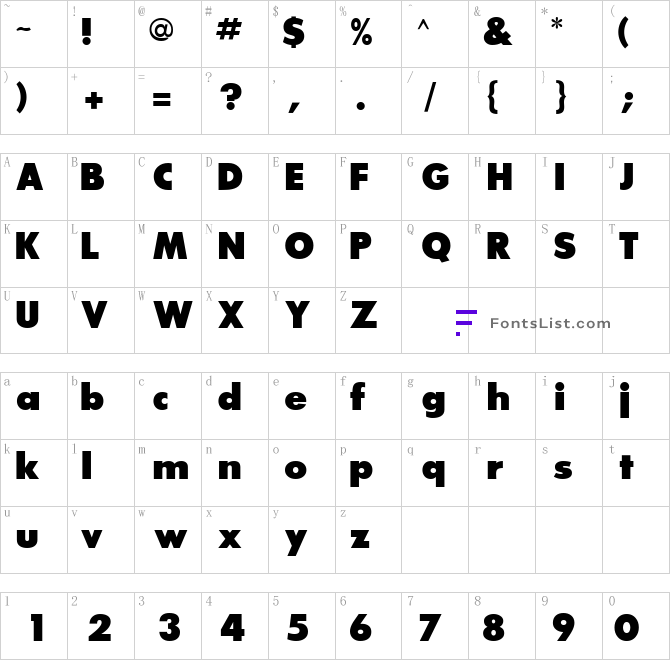
- Font Name:Aventura Heavy
Aventura-Heavy-Bold.ttf is a very beautiful artistic font, Aventura-Heavy-Bold.ttf is widely used in the design and printing of various books and pictures,Aventura-Heavy-Bold.ttf has a strong visual impact,Aventura-Heavy-Bold.ttf is a commonly used font in newspapers, magazines and books, and is used in posters, e-commerce Poster design, store design, logo design, font design and other fields.Aventura-Heavy-Bold.